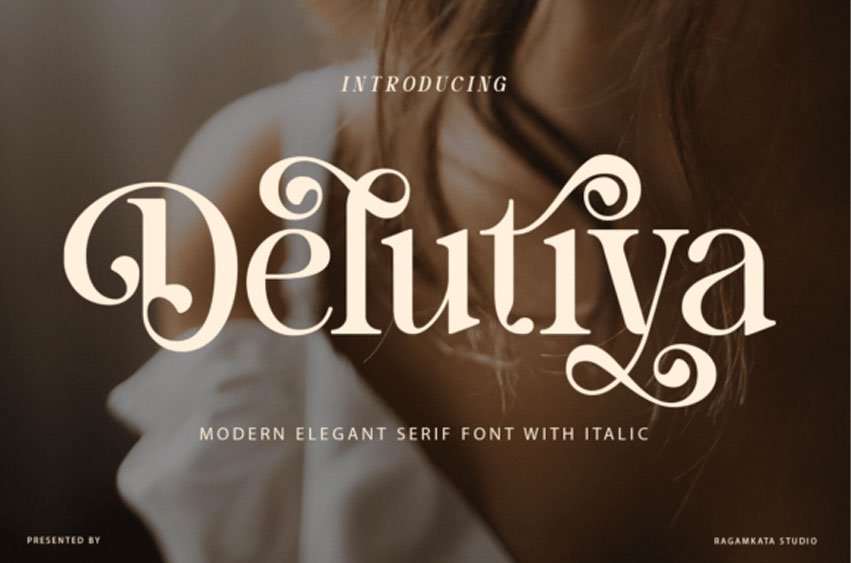
Delutiya Font is a Modern, Elegant Serif Font. It is perfect for all sorts of elegant designs like wedding invitations, but can also work great for logos, branding, website fonts and headers, or product labels.
It’s easy to read, and the alternates are visually interesting.